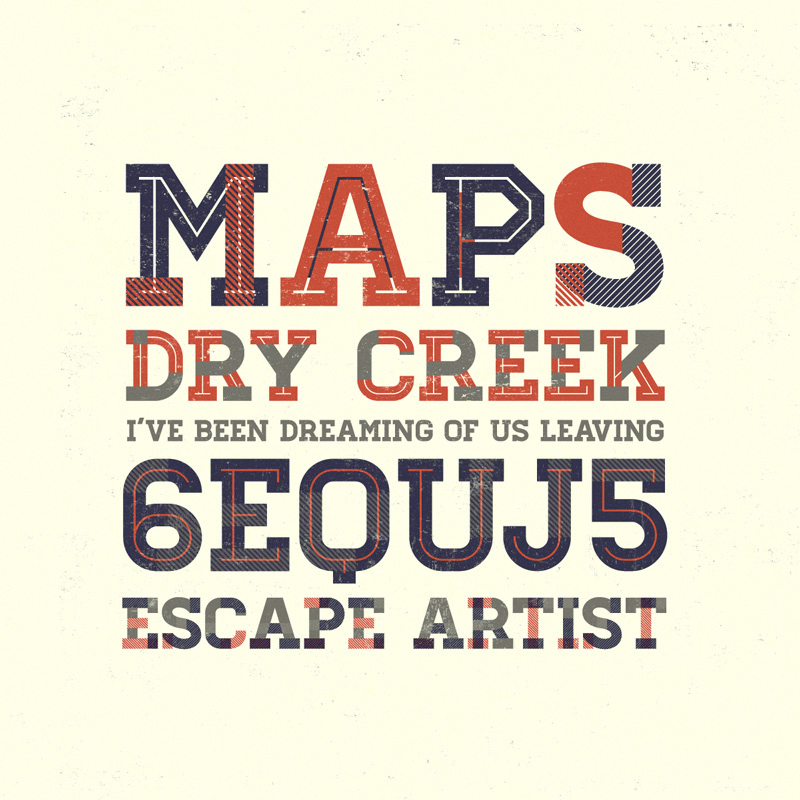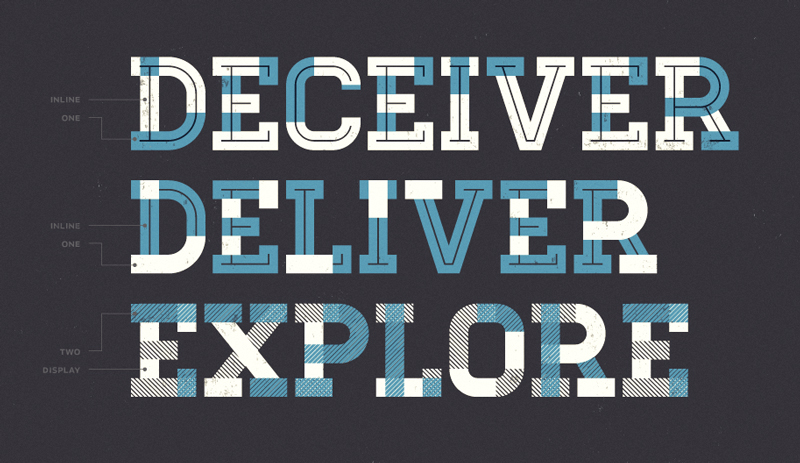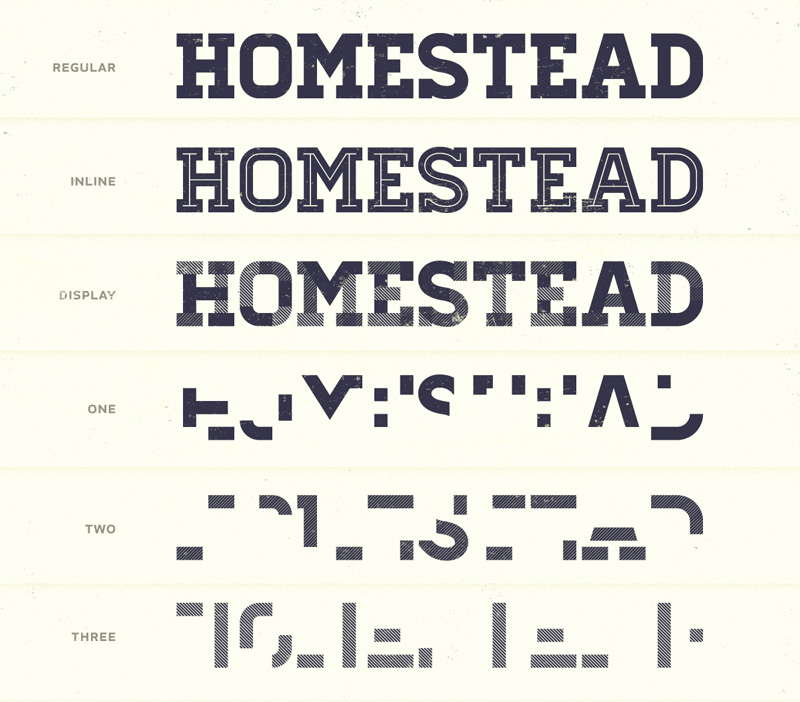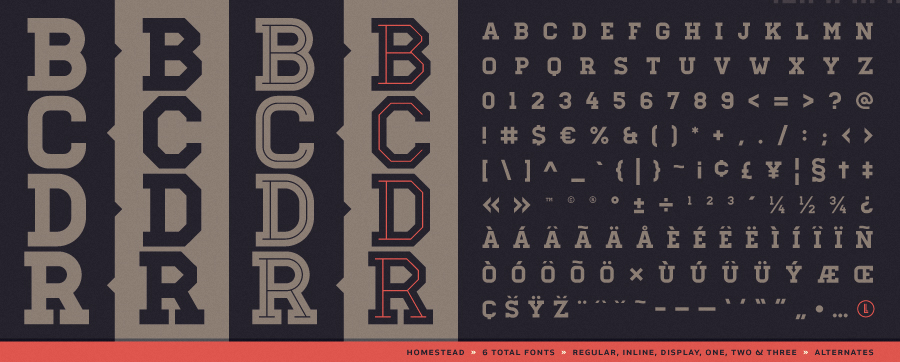
Homestead
An evocative yet forward thinking slab.
Inspired by our desire and need to explore. Always searching for the place to call home.
Designed by
Luke Lisi
Colorado born Jayhawk currently designing identities, menus and puzzles in Kansas City.
Slab-Serif